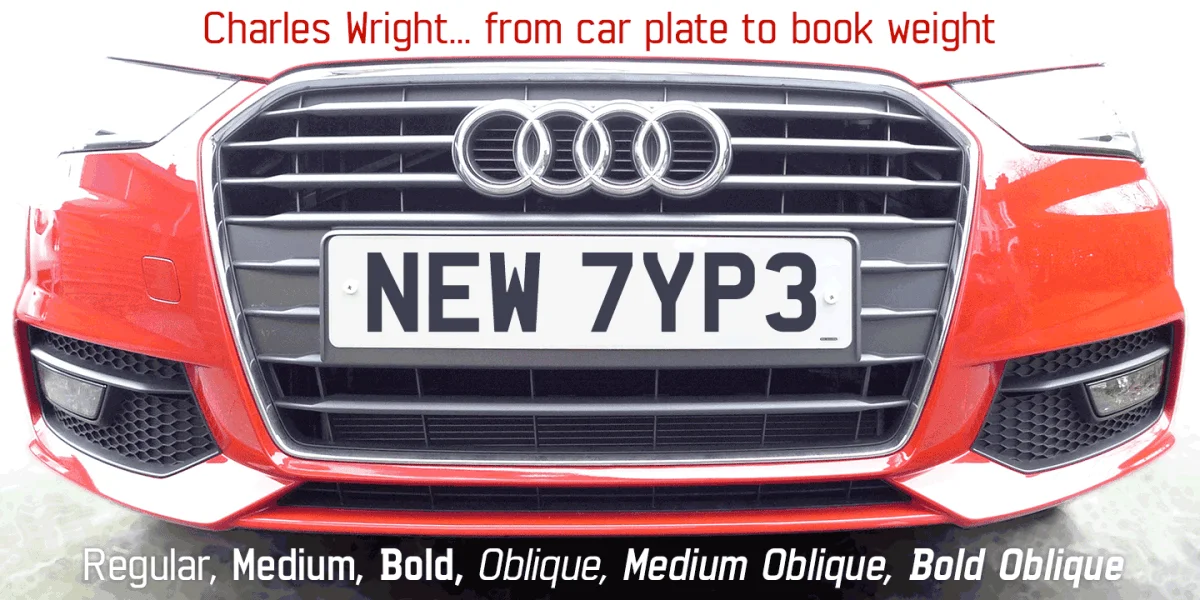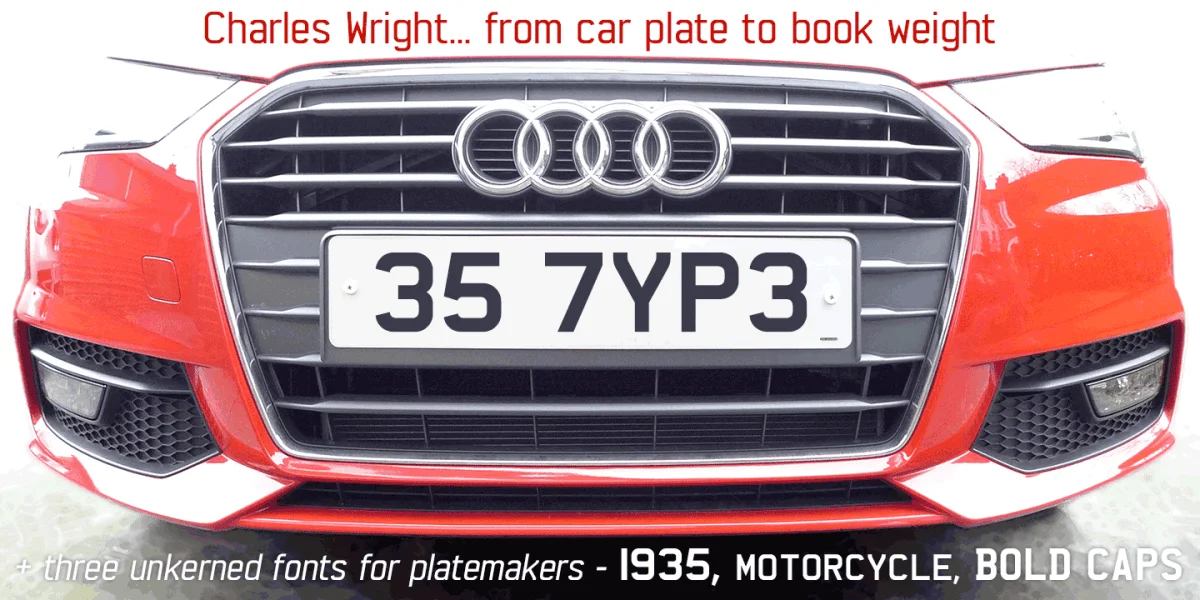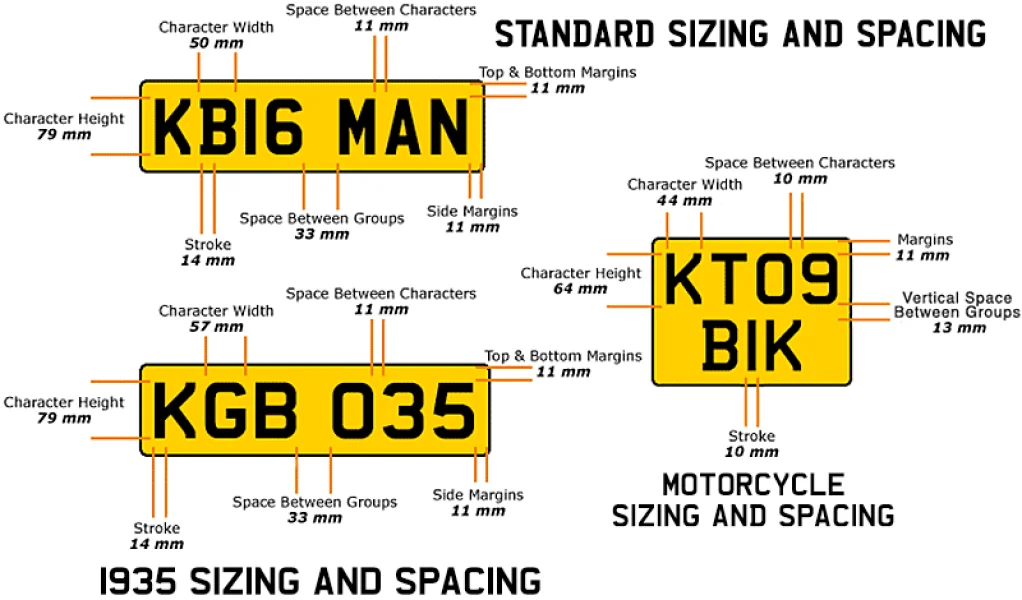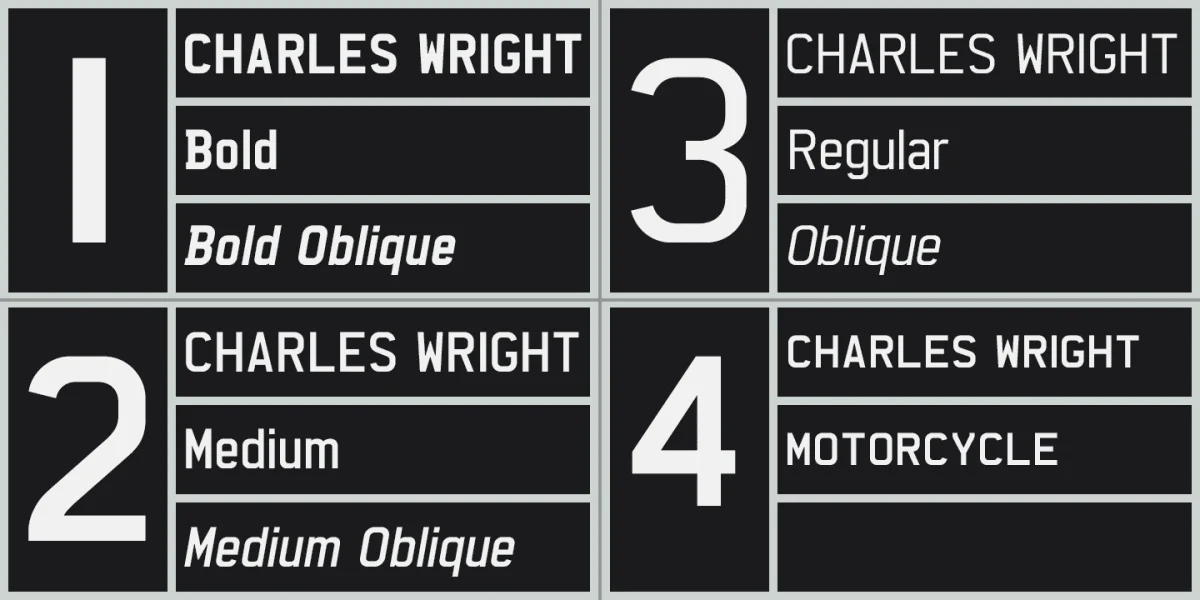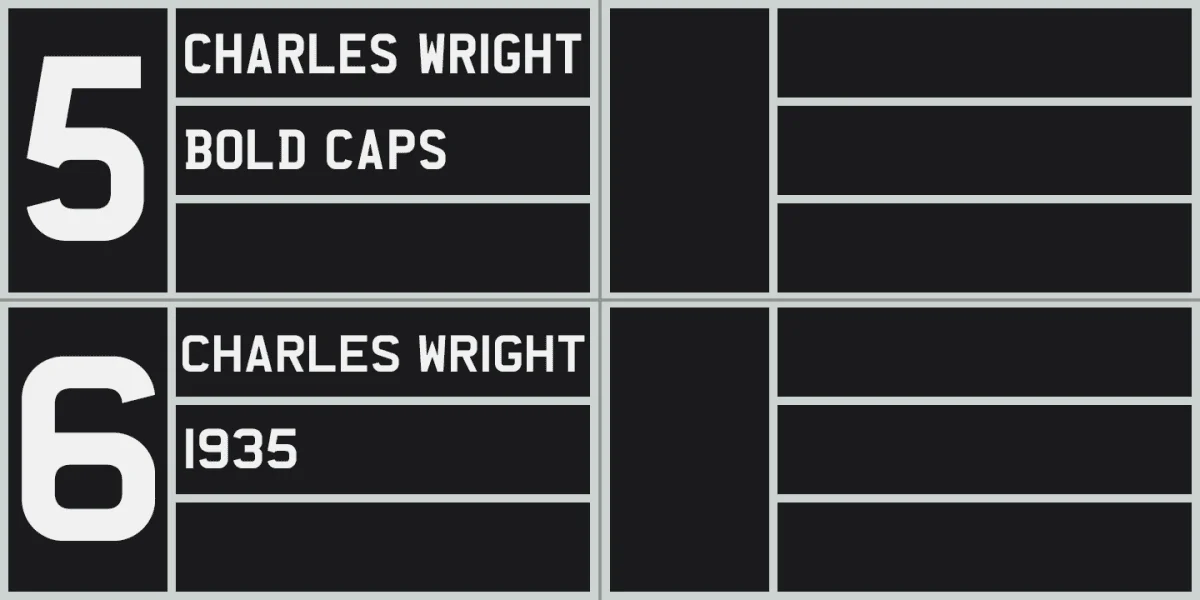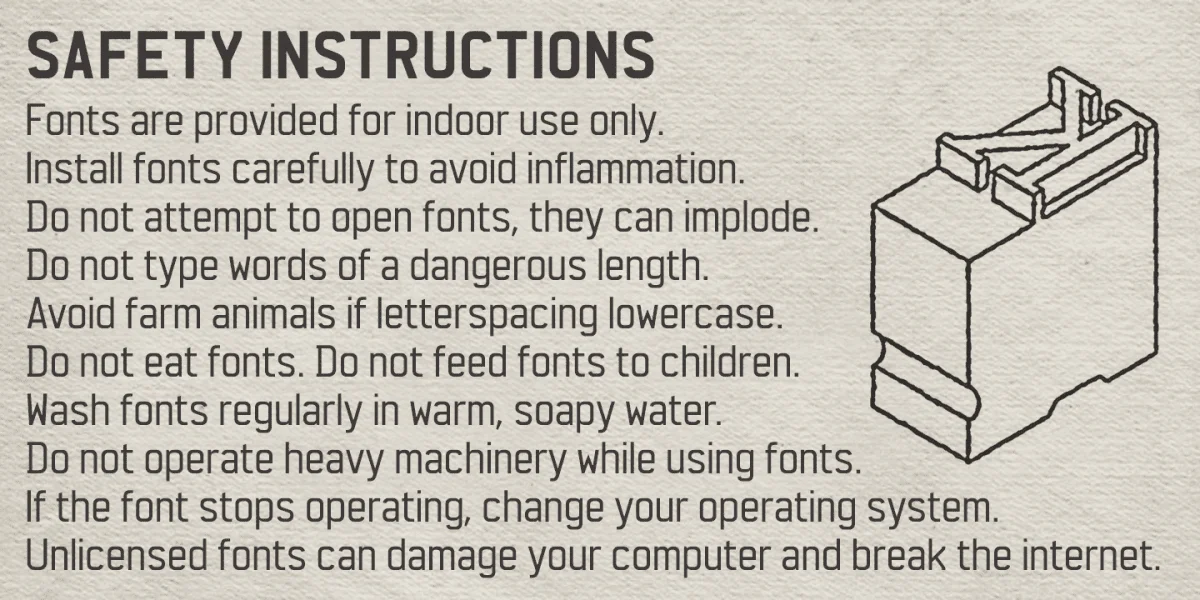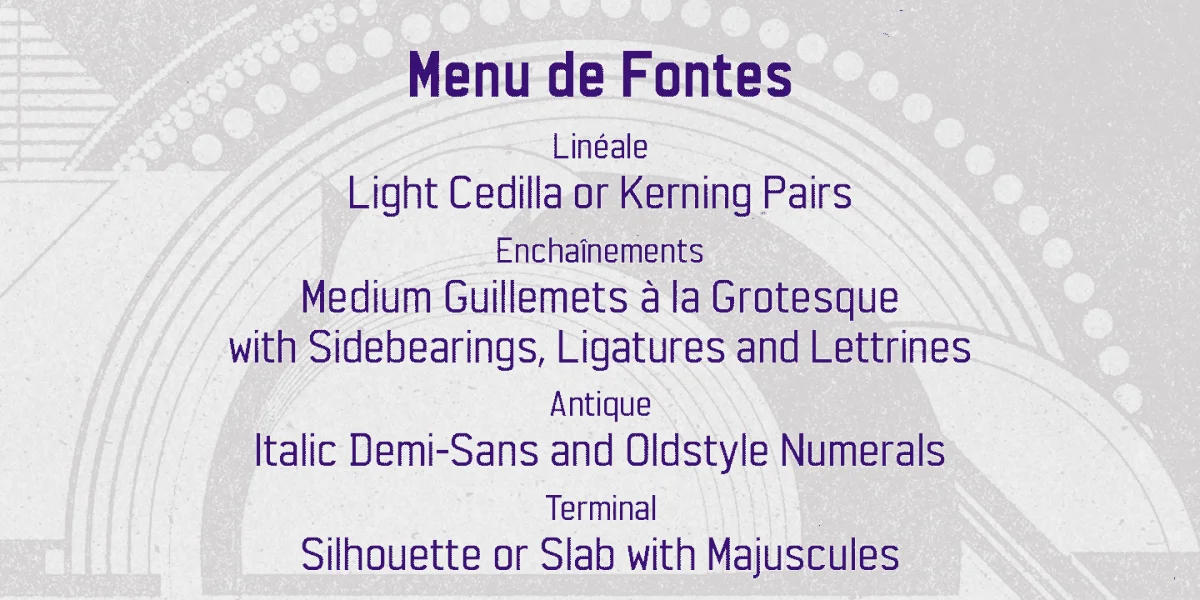
K-Type Charles Wright is a full typeface in the style of lettering used for British vehicle plates. The family includes the standard Bold weight which is based on the condensed bold ‘2001’ style with an uppercase which conforms to British registration plate specifications for character heights of 79mm and widths of 50mm.
The licensed family also includes previously unavailable Medium and Regular weights, and a set of Obliques, each containing a newly designed lowercase and a full compliment of Latin Extended-A European accented characters.
The new typeface has also been carefully kerned to perform well on the page. All three weights and their obliques contain numerous typographical nuances and aesthetic improvements to make the fonts more acceptable for design work. Curved terminals are a little less obvious so glyphs are more open and clearer. Rounded shapes are not quite as square as older versions so characters look less blocky. A hint of stroke contrast has been introduced with horizontals being very slightly thinner than verticals on the Bold, a little more contrast on the Medium and Regular weights.
The vertex of the M and apex of the W are pointed to help reduce stroke congestion (as in K-Type Mandatory), though both vertex and apex are slightly rounded to be easy on the eye. The middle strokes of both letters are more open and clearer than other Charles Wright 2001 fonts where the cropped M and W appear too heavy and tightly packed. Also, since the letter Q is not normally used for registration plates, the K-Type Charles Wright typeface allows the tail of the Q to descend below the baseline.
For vehicle platemakers, three additional fonts are included which only contain uppercase letters, numerals and basic punctuation, and which are not kerned:
Charles Wright Motorcycle is a version of the slightly lighter, smaller lettering on motorcycle plates for character heights of 64mm and widths of 44mm.
Charles Wright 1935 is a version of the original wider lettering, still used on the plates of older vehicles, for character widths of 57mm and heights of 79mm.
Charles Wright Bold Caps contains unkerned uppercase letters and numerals in the standard 2001 style for character heights of 79mm and widths of 50mm.